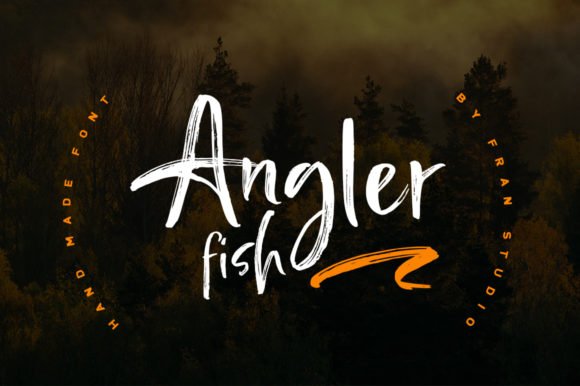
Introduction to Angler Fish Font
Angler Fish is a beautiful handwritten font, described by an elegant touch, perfect for your favorite projects.
Fall in love with its incredibly distinct and timeless style and use it to create spectacular designs This font is PUA encoded which means you can access all of the glyphs and swashes with ease.
Key Features of Angler Fish Font
Why Choose Angler Fish Font?
Angler Fish Font offers exceptional quality and versatility, making it a valuable addition to your design toolkit. Whether you’re creating for personal projects or commercial use, Angler Fish Font delivers professional results.